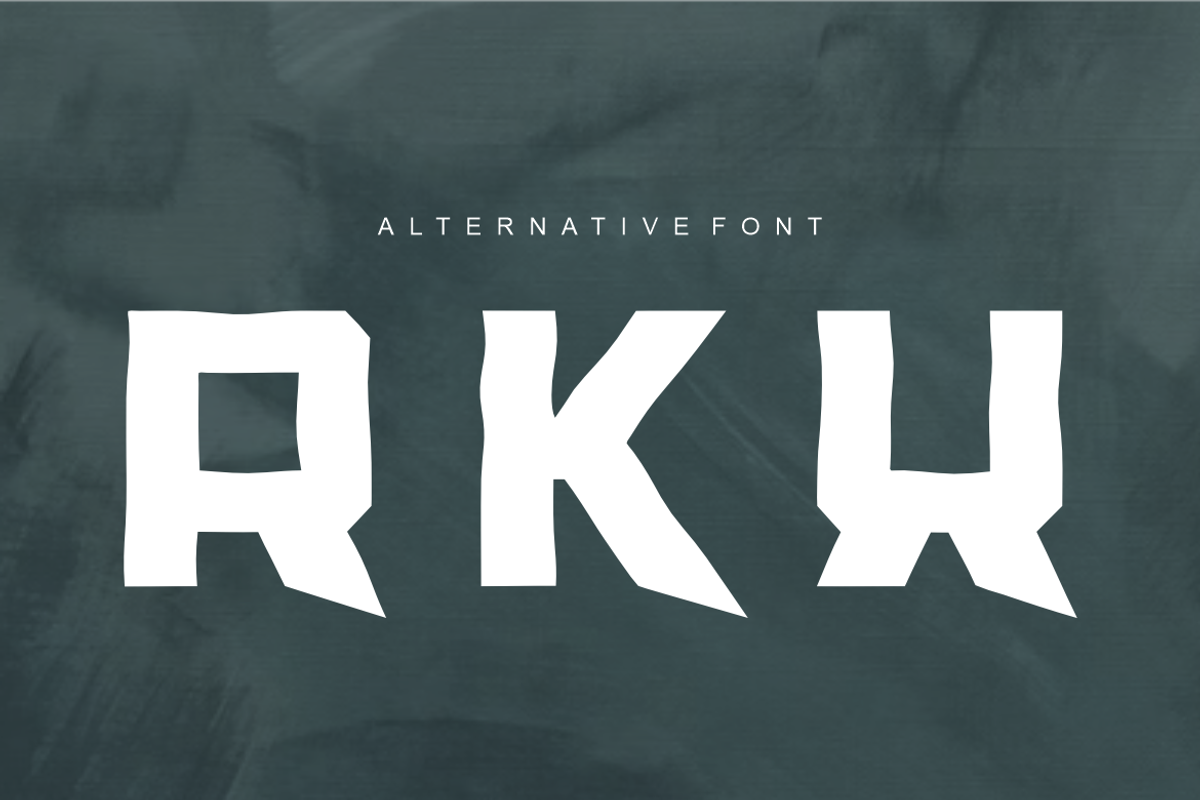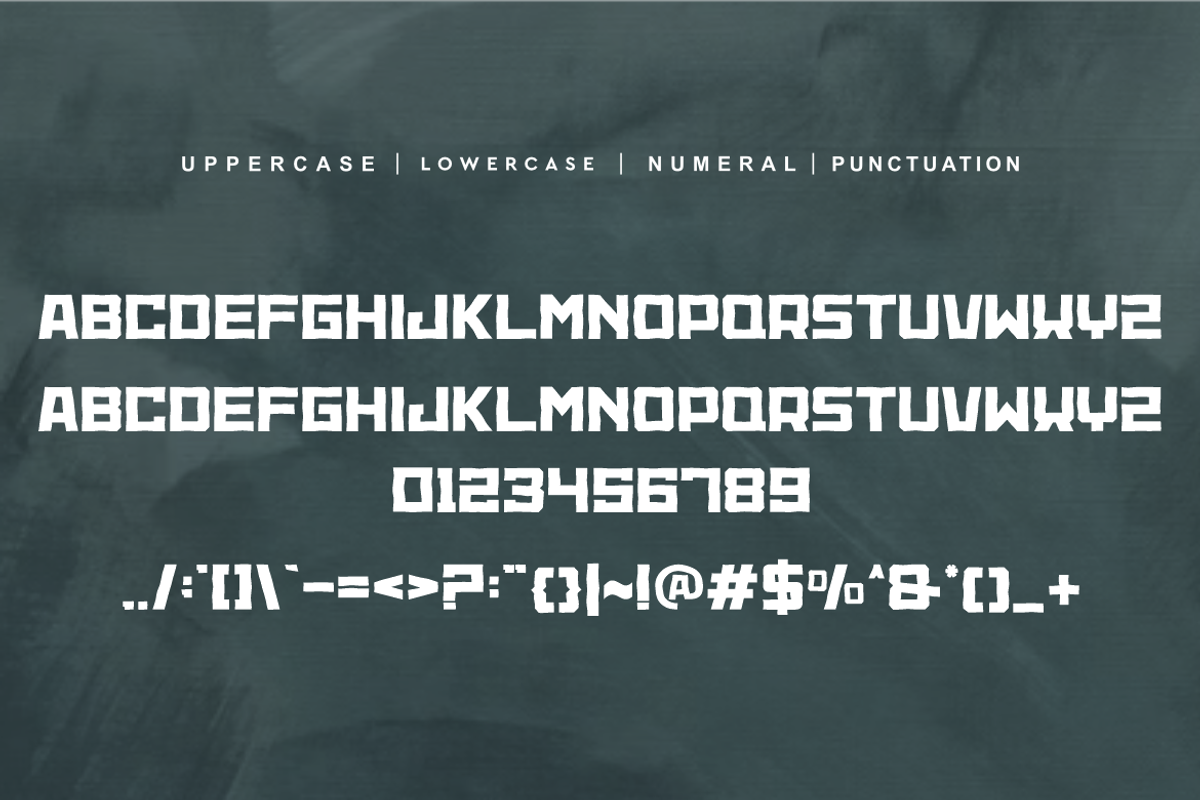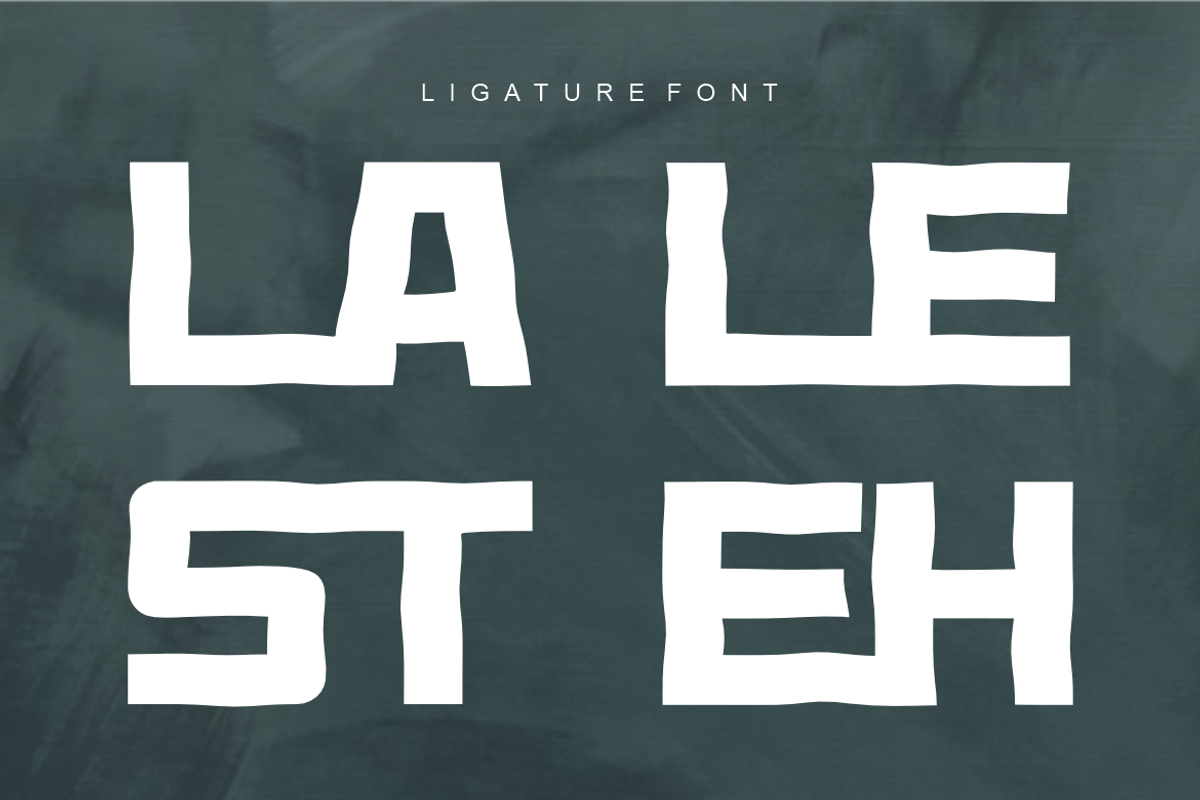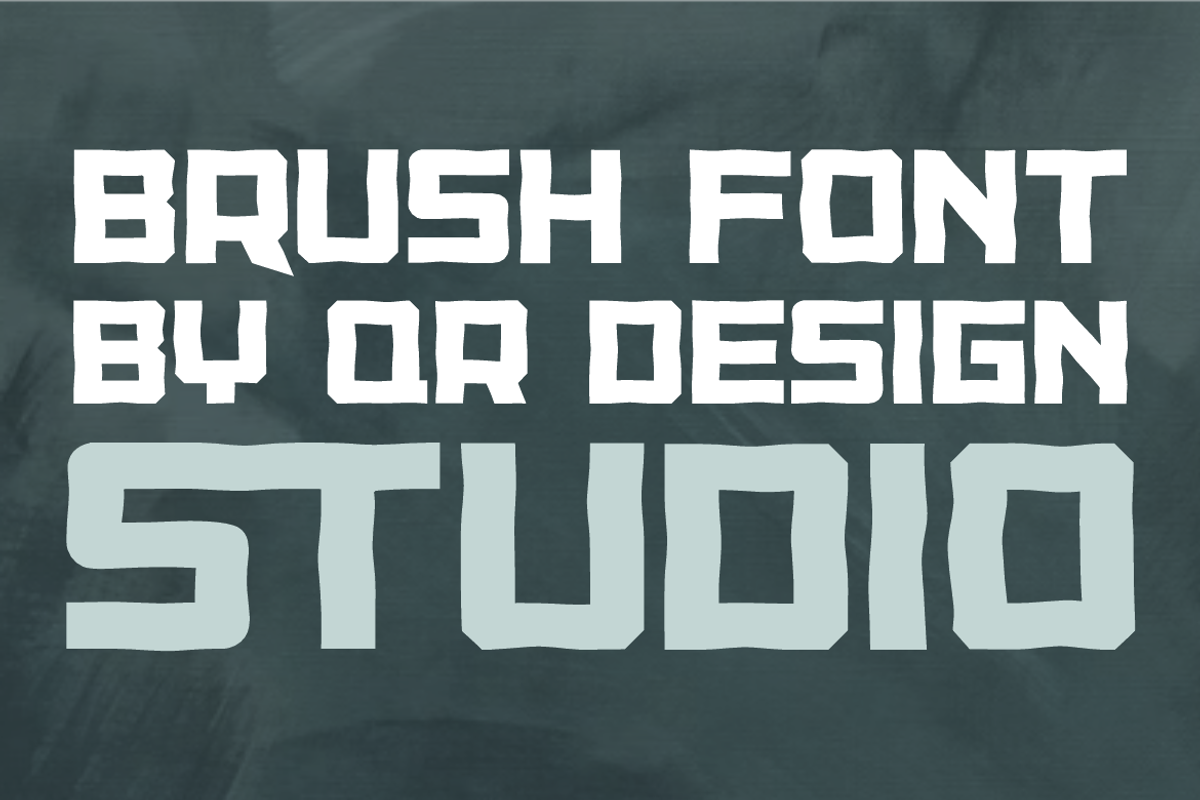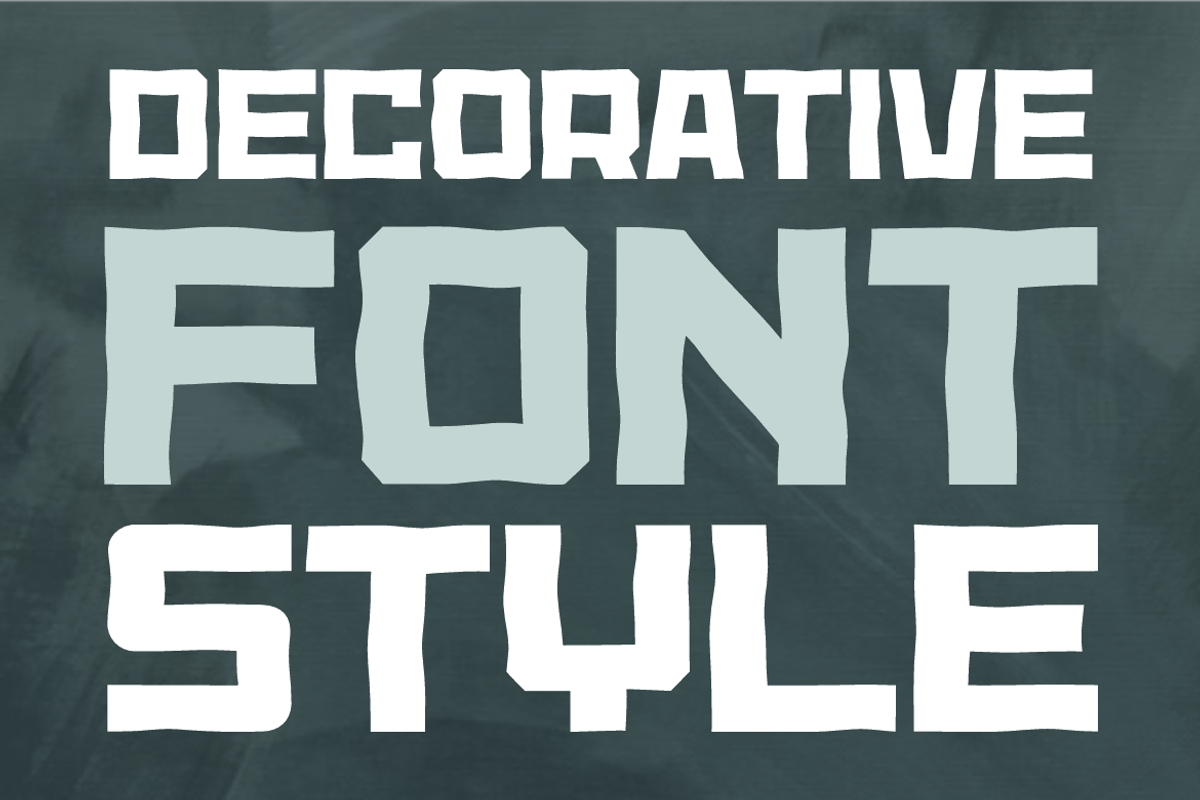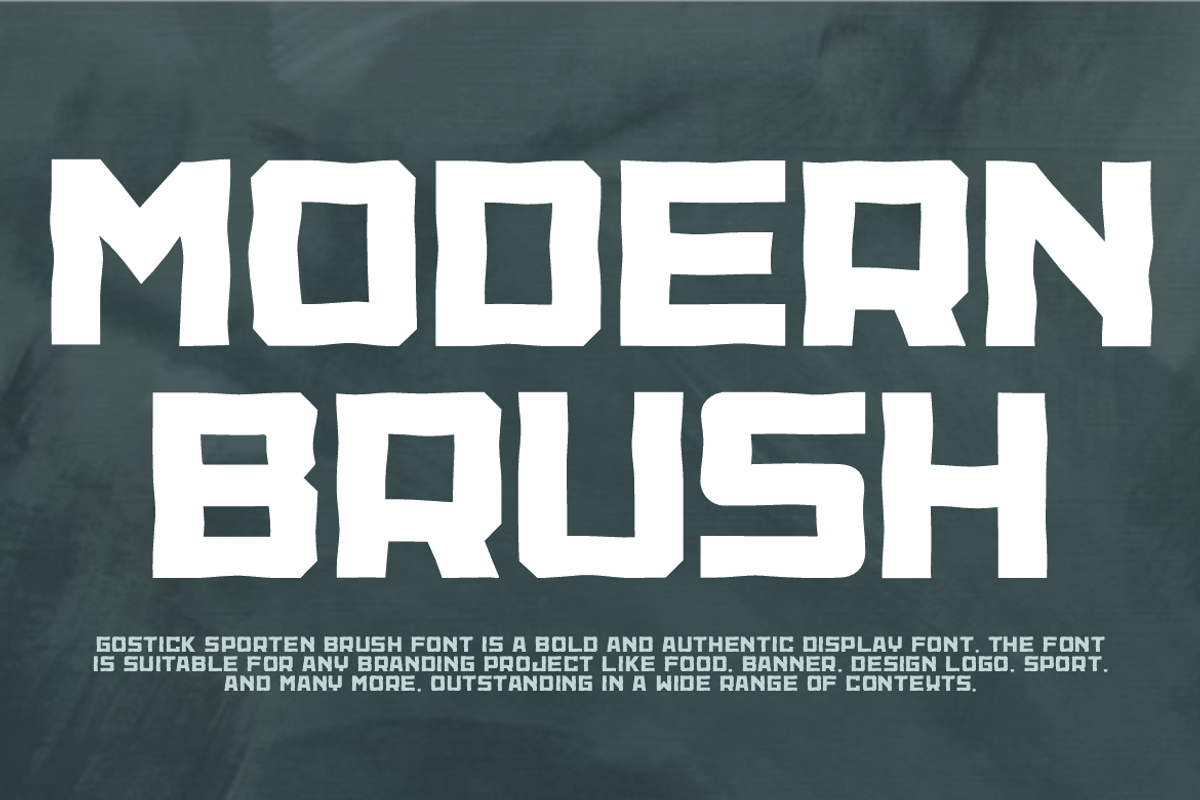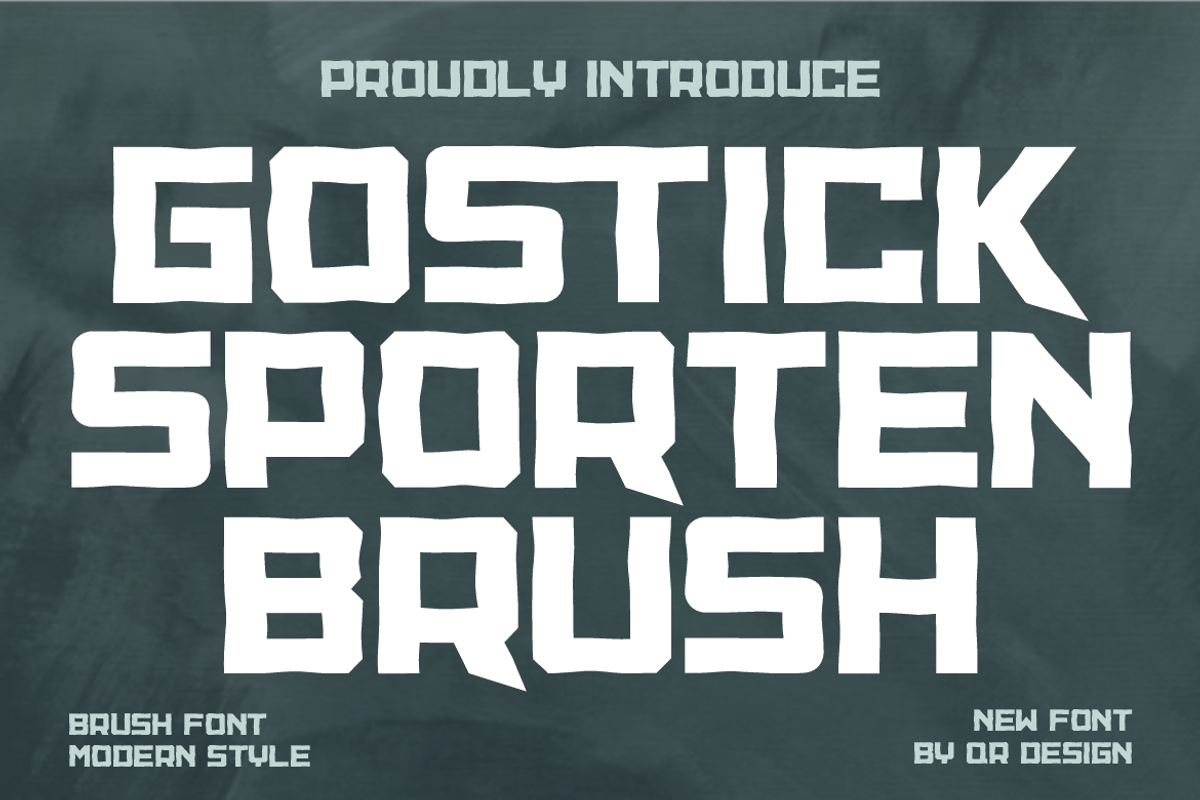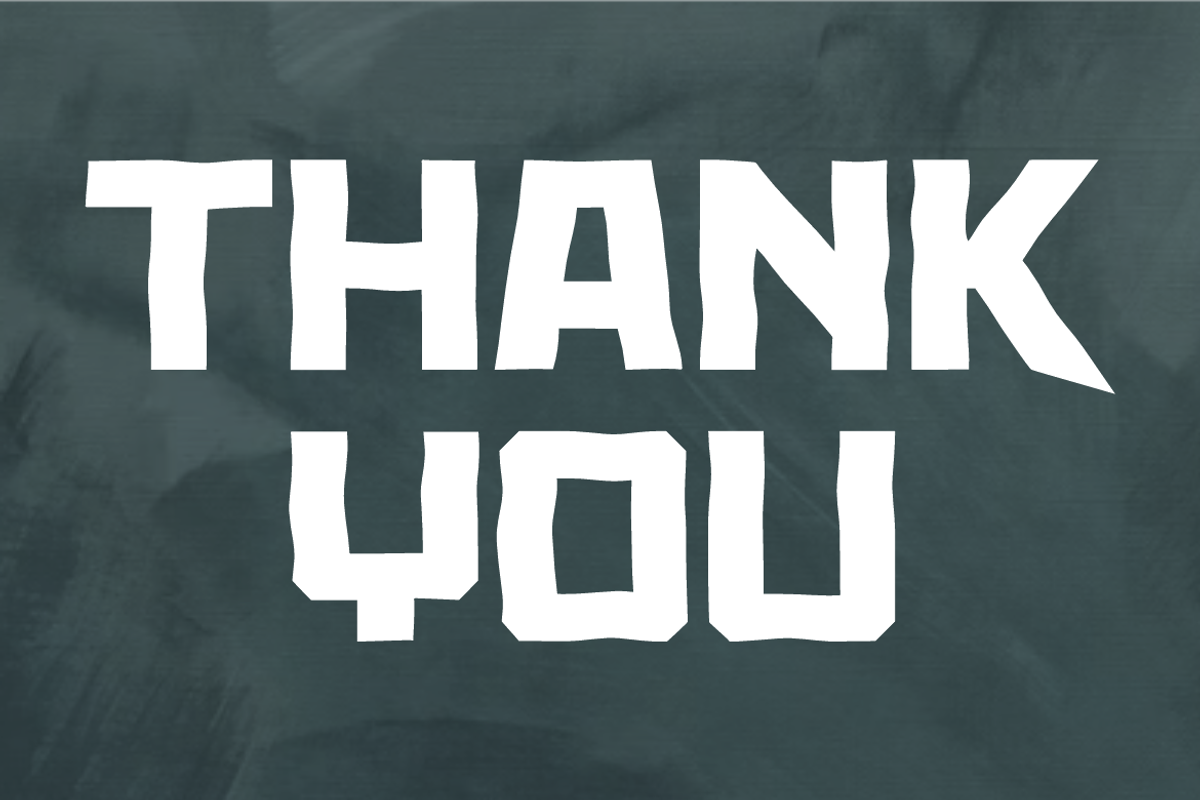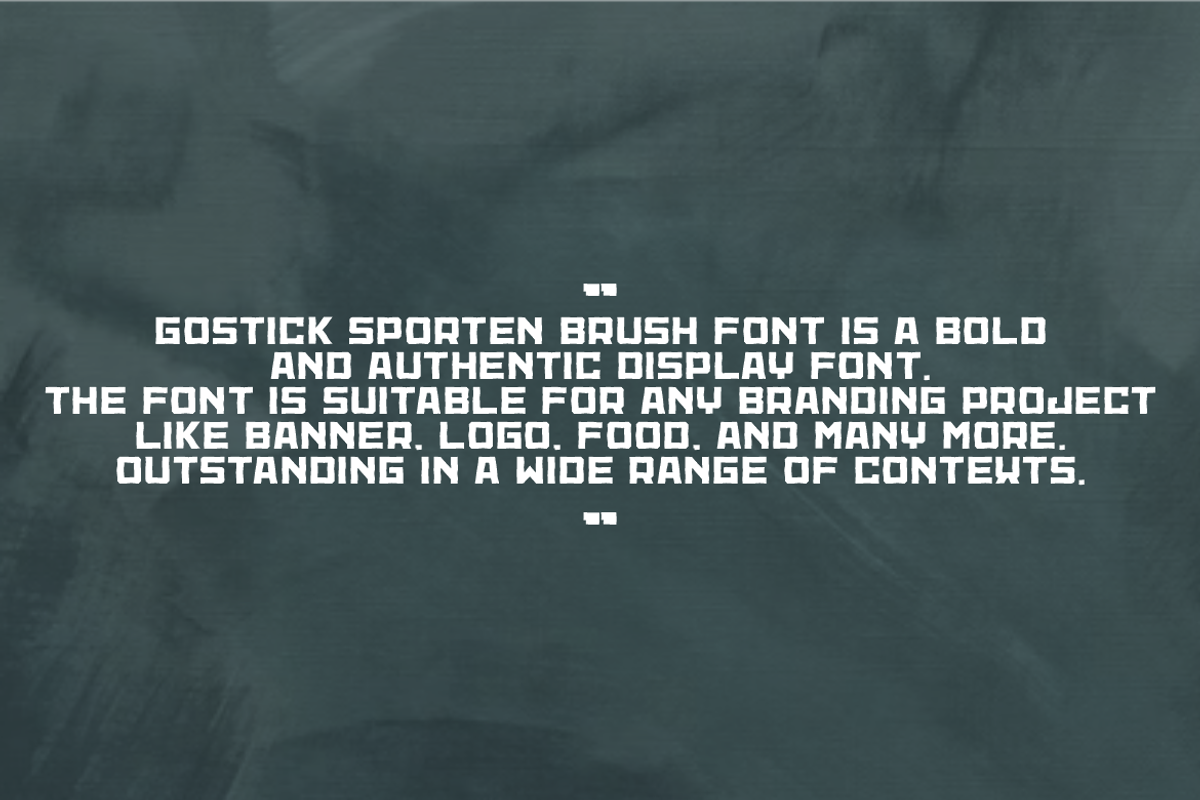
Gostick Sporten Brush
Gostick Sporten Brush Font is a bold and authentic display font. The font is suitable for any branding project like logo, sport, and many more. Outstanding in a wide range of contexts.